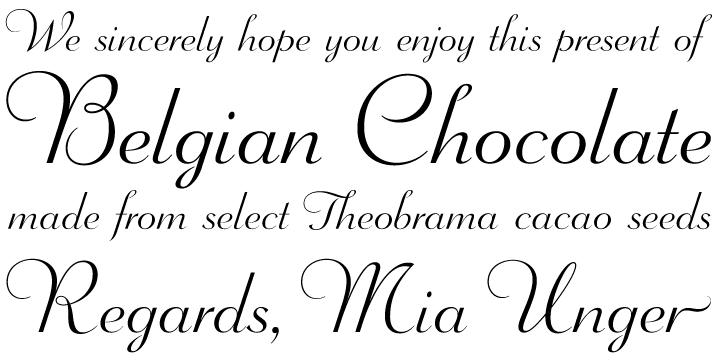
Wagner Script Pro
Wagner Script Pro is a script font published by Canada Type.
This gem of a script was what metal era typographers called a "continental face", which essentially meant an old, most likely uncredited, metal face that was common to many European foundries.
This particular one ran the rounds in the first half of the twentieth century under the names Donatello, Aigrette, Troubadour, Hertha, and Gracia.
A little research reveals its true origin to be circa 1926 at the Wagner & Schmidt foundry in Leipzig, where it was a bold script named Troubadour.
A cut that was much lighter, more elegant, and much more suitable for larger display applications was made by the Amsterdam Lettergieterij in the late 1930s, under the name Gracia.
This gem of a script was what metal era typographers called a “continental face”, which essentially meant an old, most likely uncredited, metal face that was common to many European foundries. This particular one ran the rounds in the first half of the twentieth century under the names Donatello, Aigrette, Troubadour, Hertha, and Gracia. A little research reveals its true origin to be circa 1926 at the Wagner & Schmidt foundry in Leipzig, where it was a bold script named Troubadour. A cut that was much lighter, more elegant, and much more suitable for larger display applications was made by the Amsterdam Lettergieterij in the late 1930s, under the name Gracia. Gracia was a common sight on perfume bottles, wine labels, chocolate boxes, and book covers in Europe for about four decades. Like many treasures of its kind, it seems to have never been considered for digital retooling until now.
Wagner Script corrects and greatly expands on the original metal concept, to include plenty of alternate forms, even as many as four variations on some characters. It also comes with extended range Latin-based language support. The Wagner Script package contains both Wagner Script Pro, a premium feature-loaded OpenType font for advanced typography applications, as well as three TTF fonts for the legacy format user.